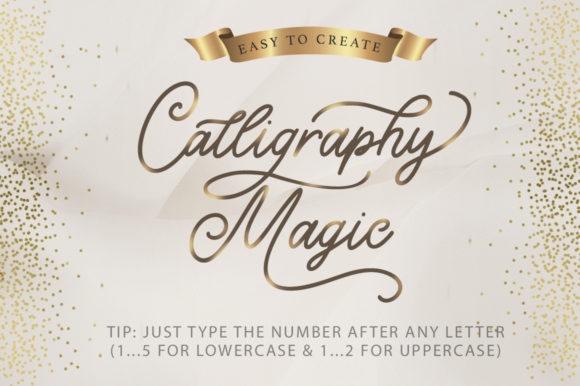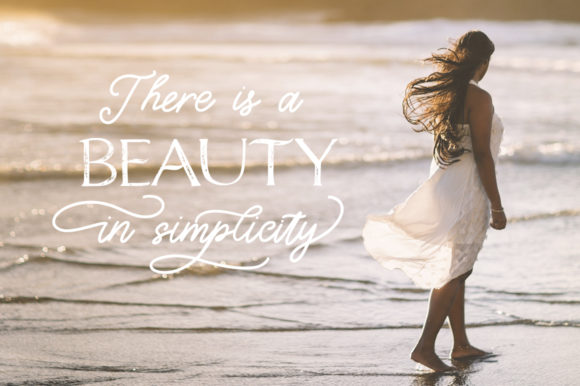
Good Feeling Font
db-ku.com - Script & Handwritten -- Good Feeling is a light and elegant font duo with a unique charm. It will turn any design project into a stand out!